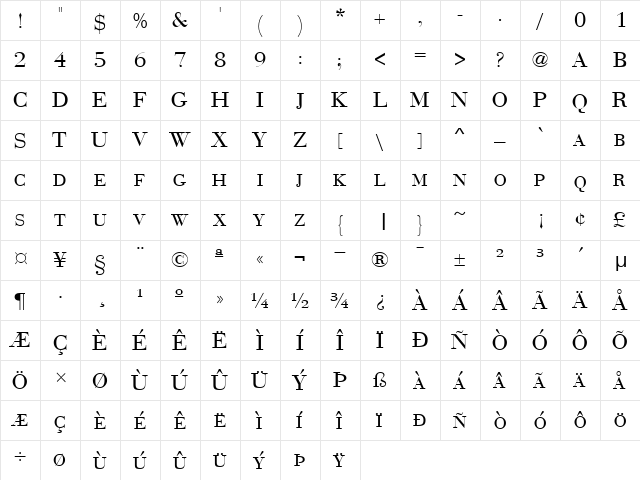
BodoniExpert Normal
Design Context for BodoniExpert Typeface
BodoniExpert offers clean, dependable letterforms without strong stylistic allegiance, making it a practical choice for designers who need flexibility.